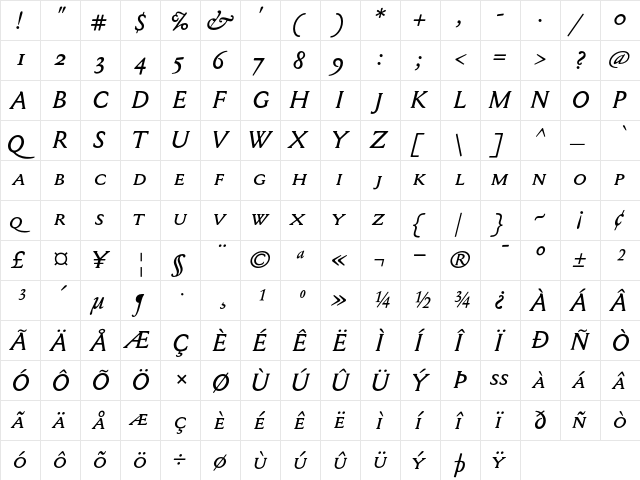
Mediaeval SCOSF Italic
| Foundry | Frantisek Storm |
| Designer | Frantisek Storm |
Design Context for Mediaeval SCOSF Typeface
Mediaeval SCOSF takes a measured approach to typography — its balanced proportions and neutral character make it a reliable workhorse for both digital and print work. The dynamic lean of this cut emphasises speed and emphasis in any layout.
Pro Tip: Use Mediaeval SCOSF for emphasis, pull quotes, and subheadings where its slanted energy can add rhythm to the layout.